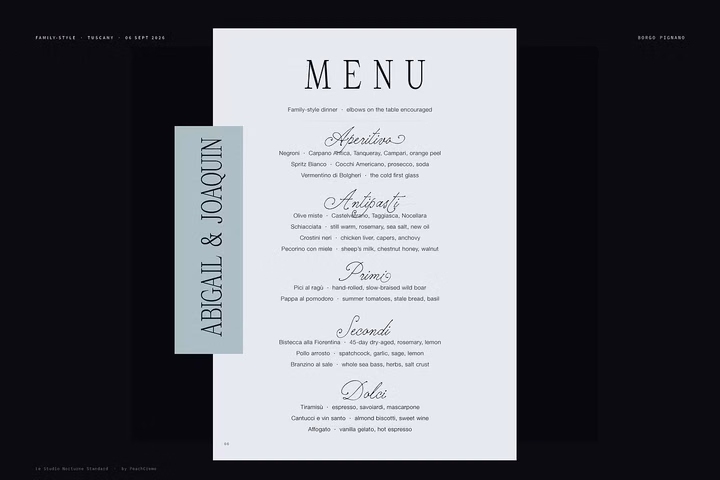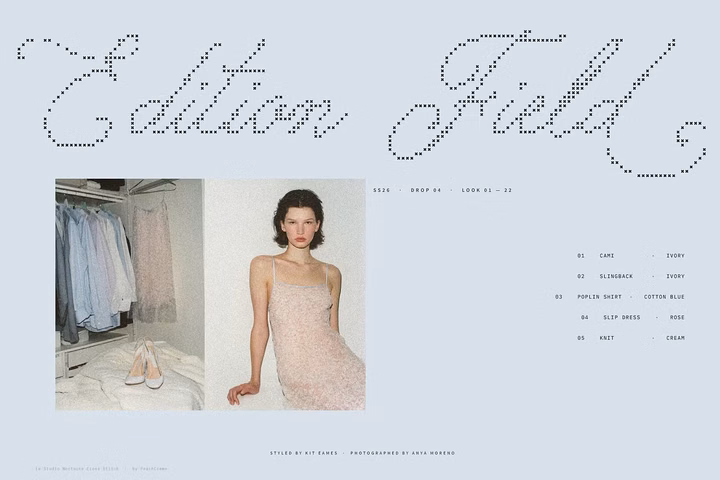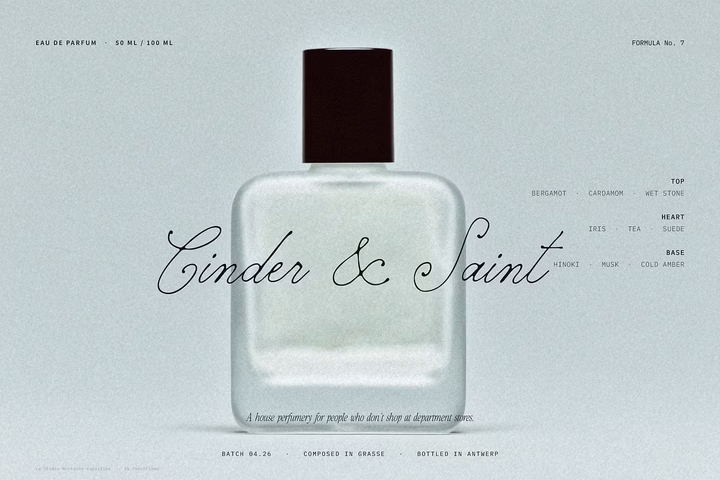
Le Studio Nocturne, a handwritten font set a script for slow things. Perfume, weddings, menus, the kind of magazine you keep. Inky, a little nostalgic, looks like it was written rather than typeset.
Six fonts in the set:
- Standard
- Bold
- Superfine
- Aged
- Thin Rough
- Cross Stitch